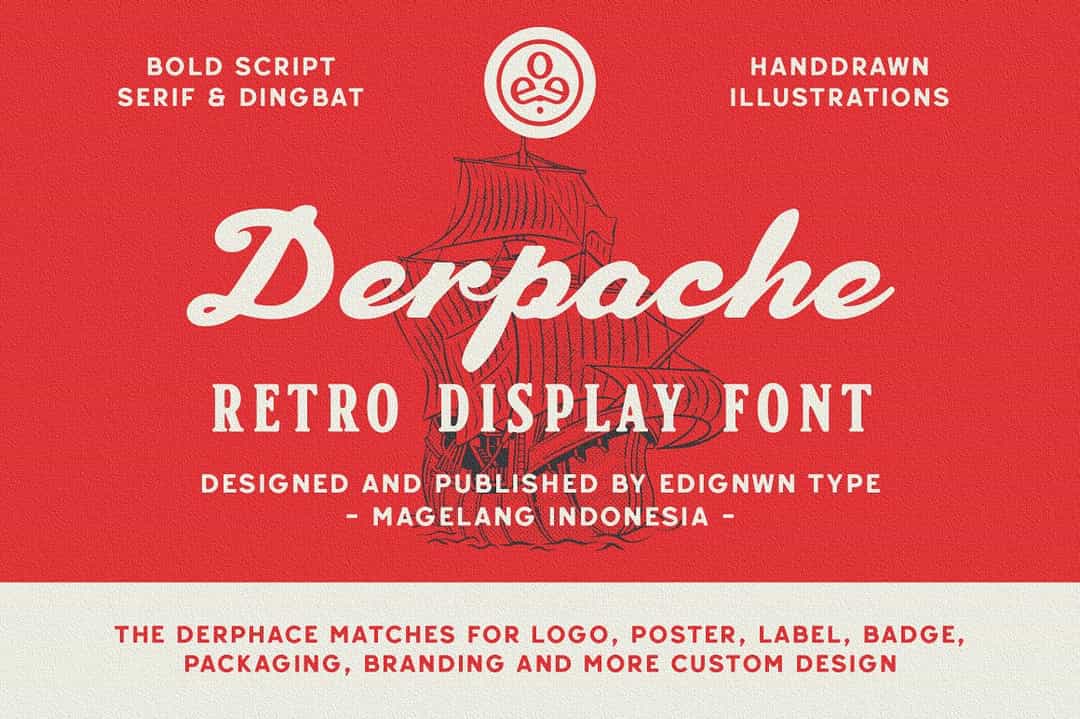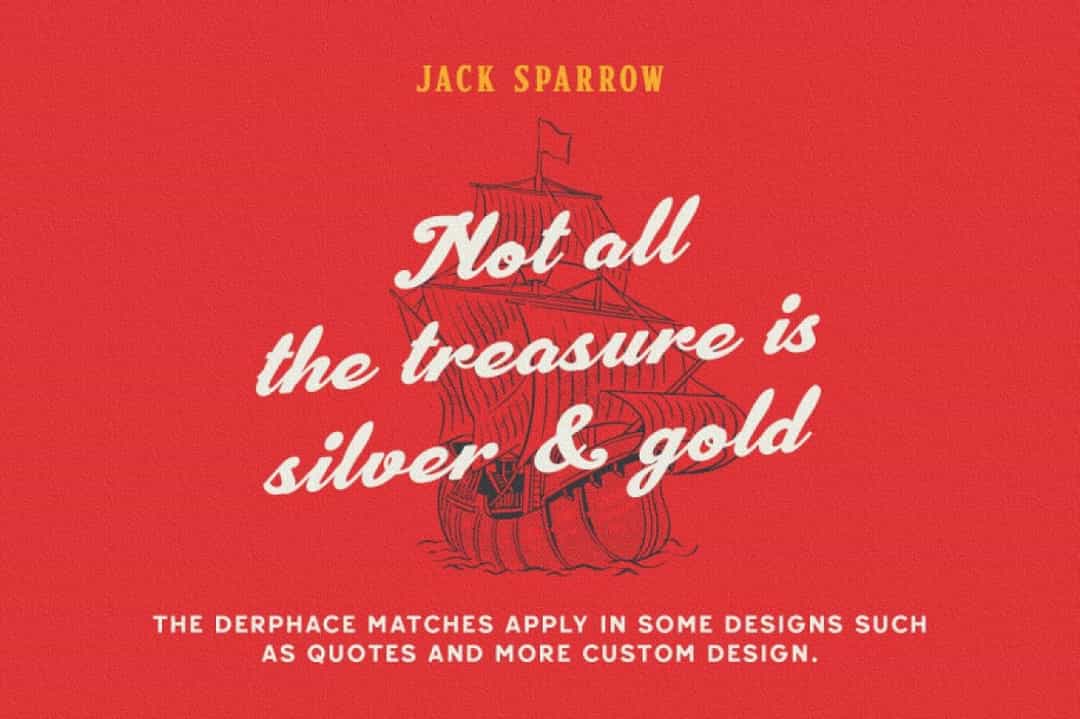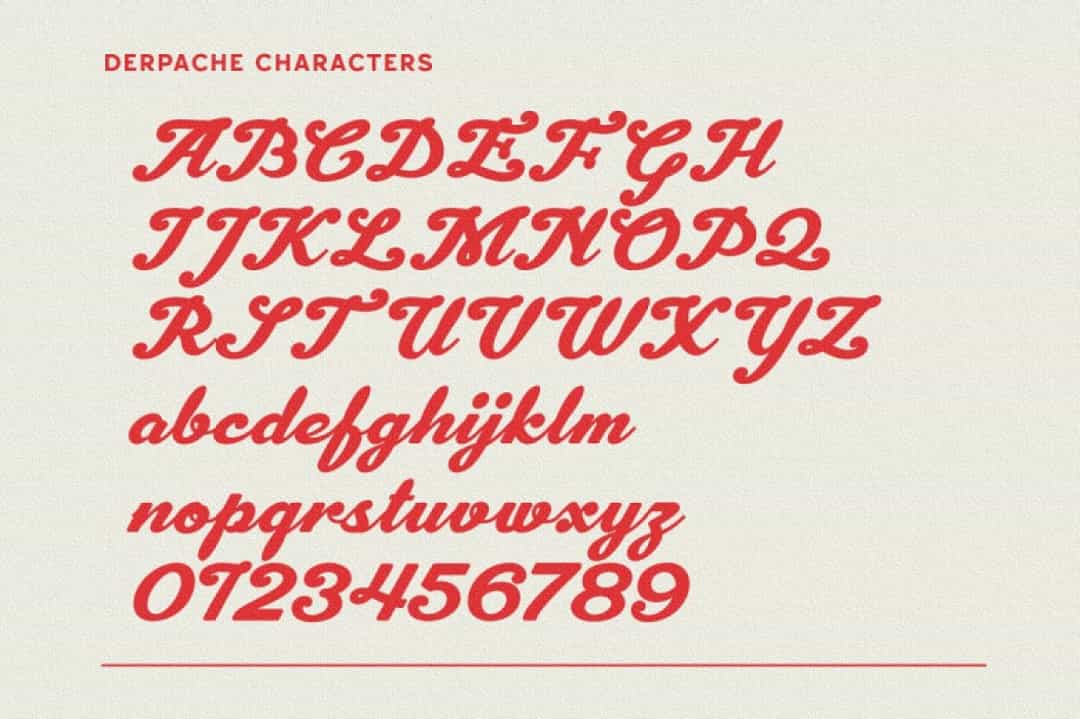
Derpache draws it’s inspiration from vintage label script fonts. This font collection includes serif and script fonts with four styles available (regular round, rough and stamped), plus Pirate and Nautical illustrations in one pack!